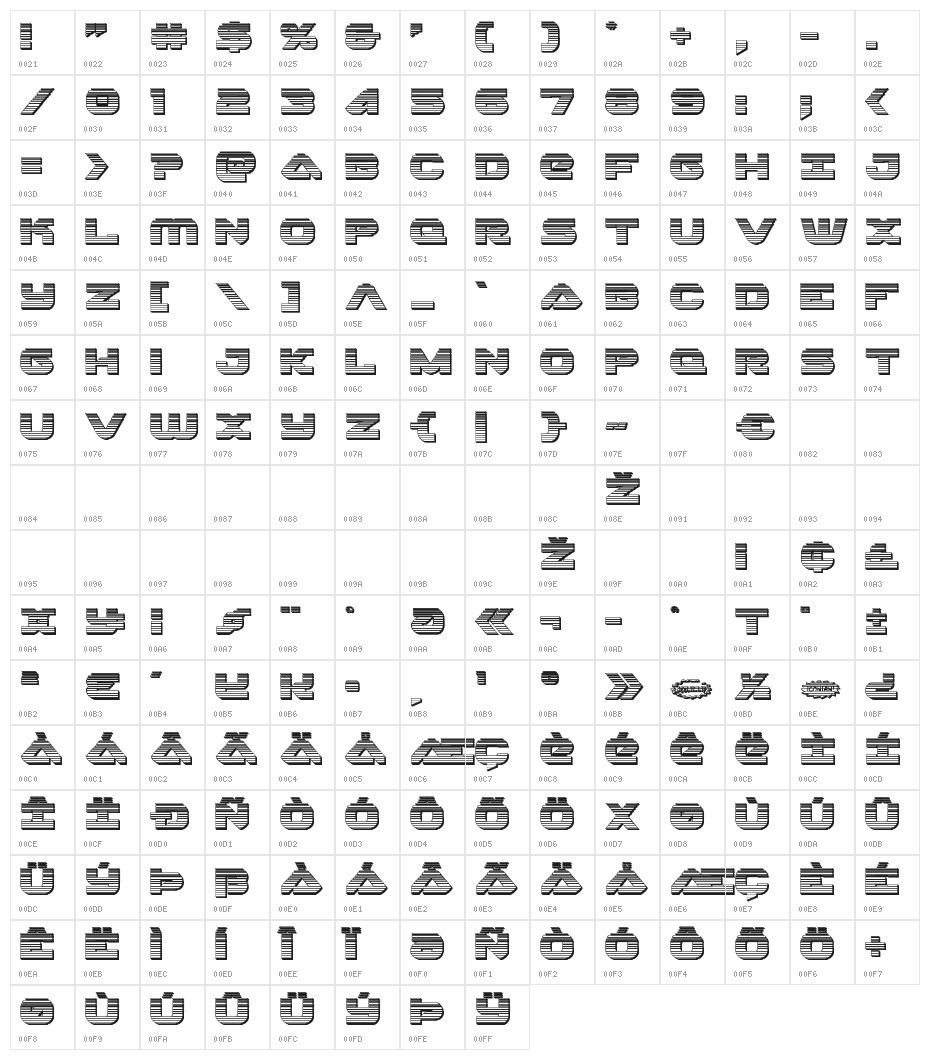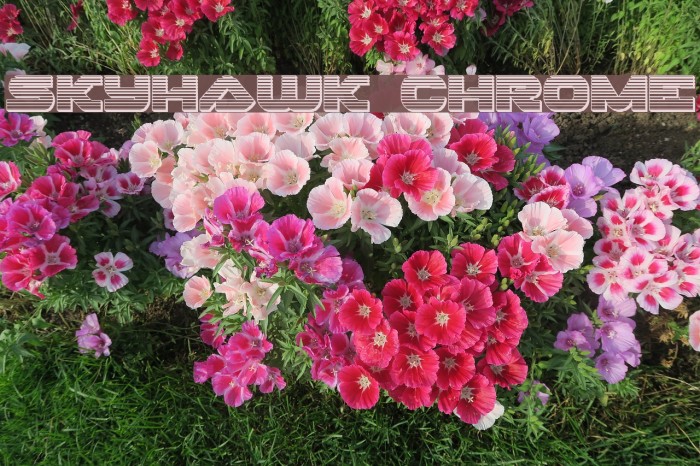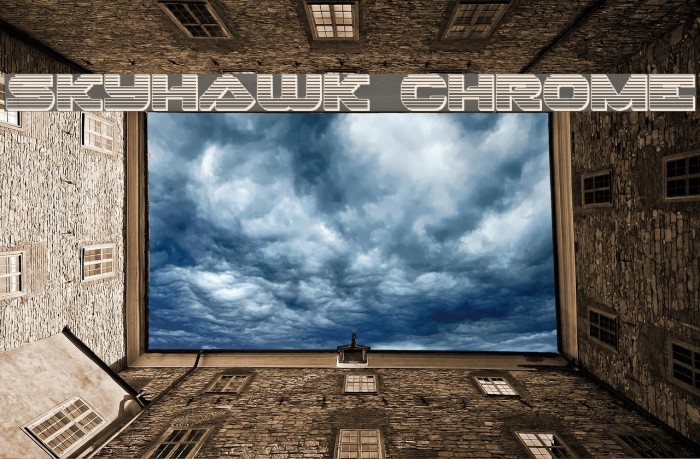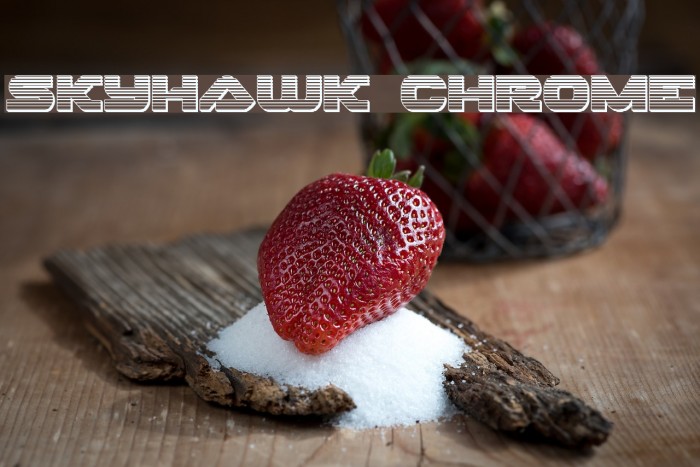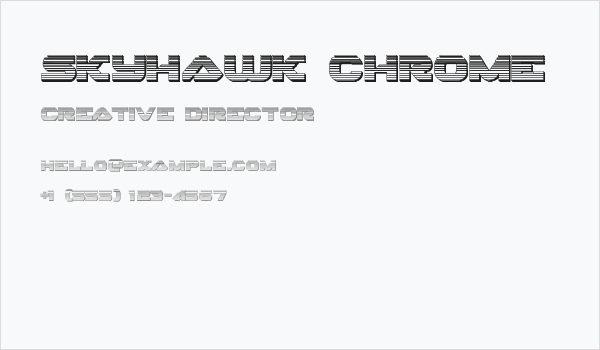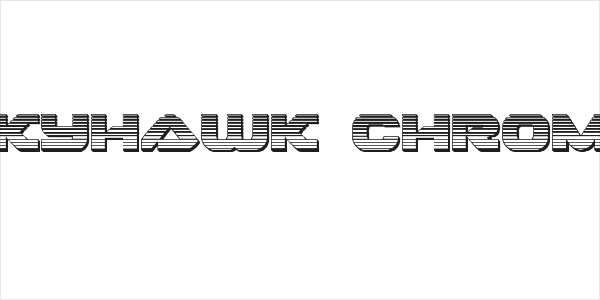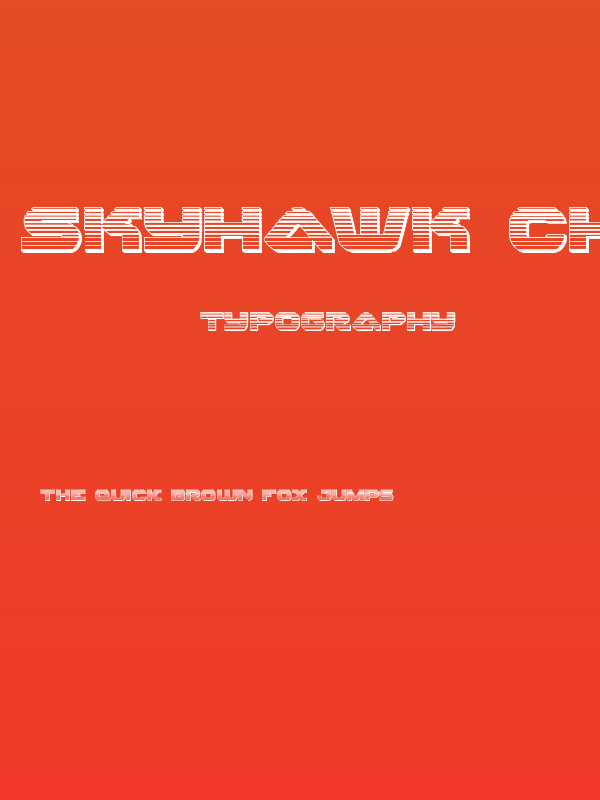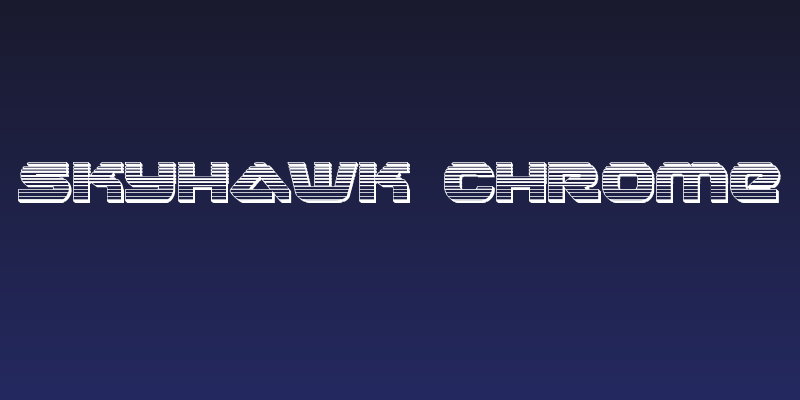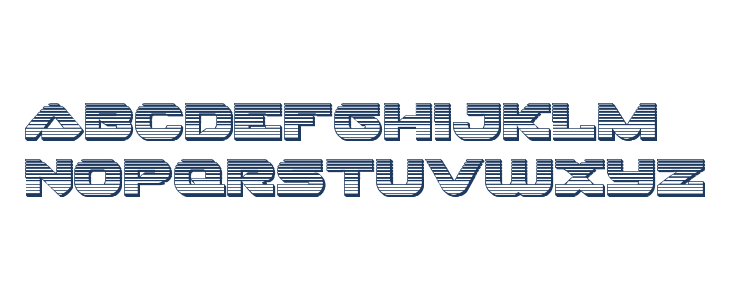
Skyhawk Chrome Font
Skyhawk Chrome Description
This font features a bold, futuristic design with a distinctive striped pattern running through each character. The uppercase and lowercase letters maintain a consistent width, creating a uniform appearance. The geometric shapes and sharp angles give it a modern and edgy look, while the horizontal lines add a sense of movement and dynamism. The numerals and special characters follow the same design principles, ensuring a cohesive style across all glyphs. This font is ideal for projects that require a strong visual impact and a contemporary aesthetic.